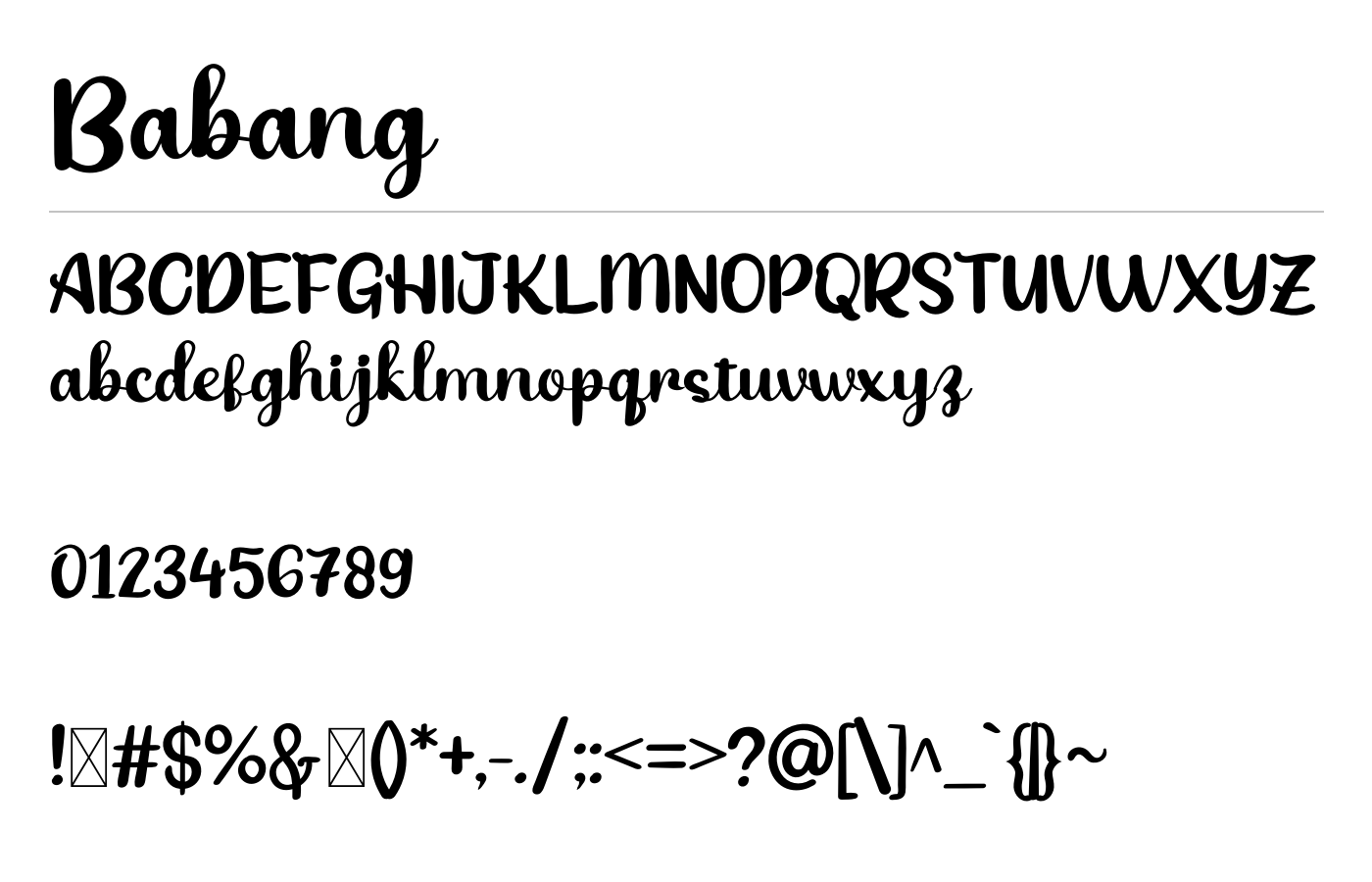
Babang is a playful and bold script font with a lively, hand-lettered feel. It features smooth, rounded strokes and a consistent weight that gives it an approachable yet stylish personality, making it perfect for branding, invitations, and creative headlines. This font’s friendly charm and clear readability work well in casual, fun, and youthful design contexts.
Babang Font